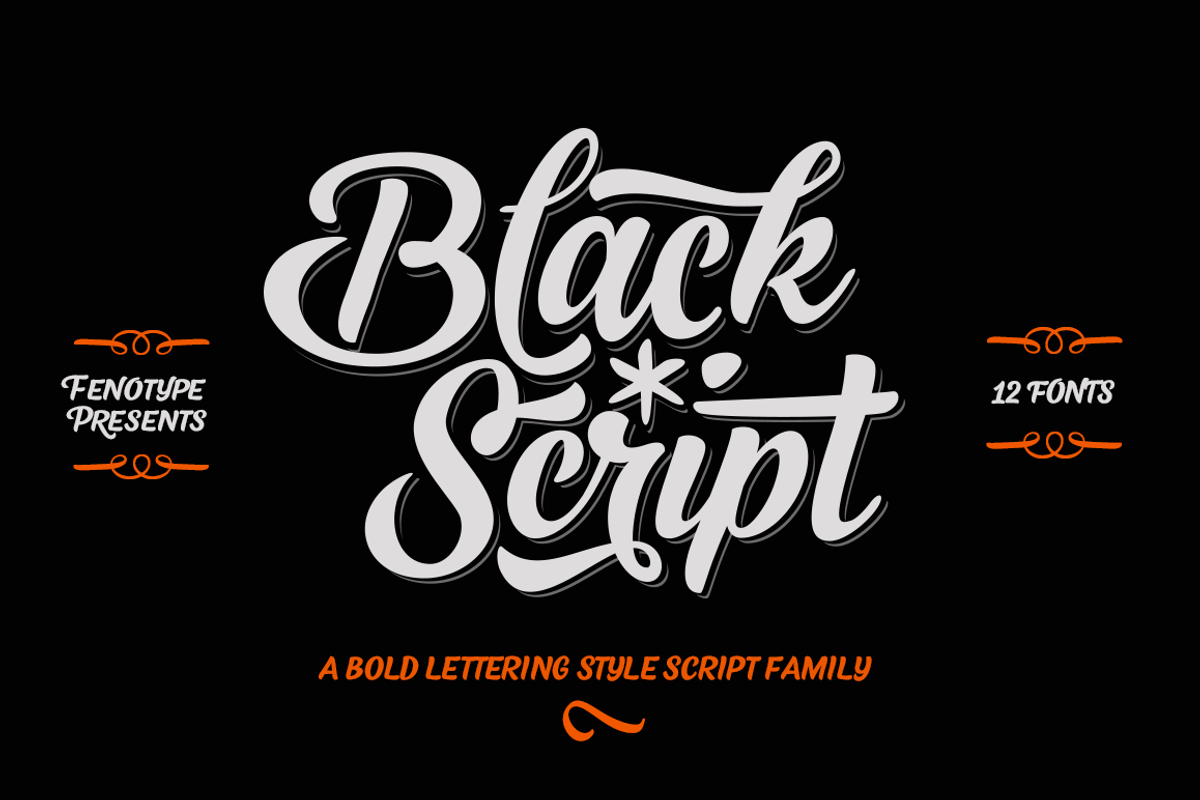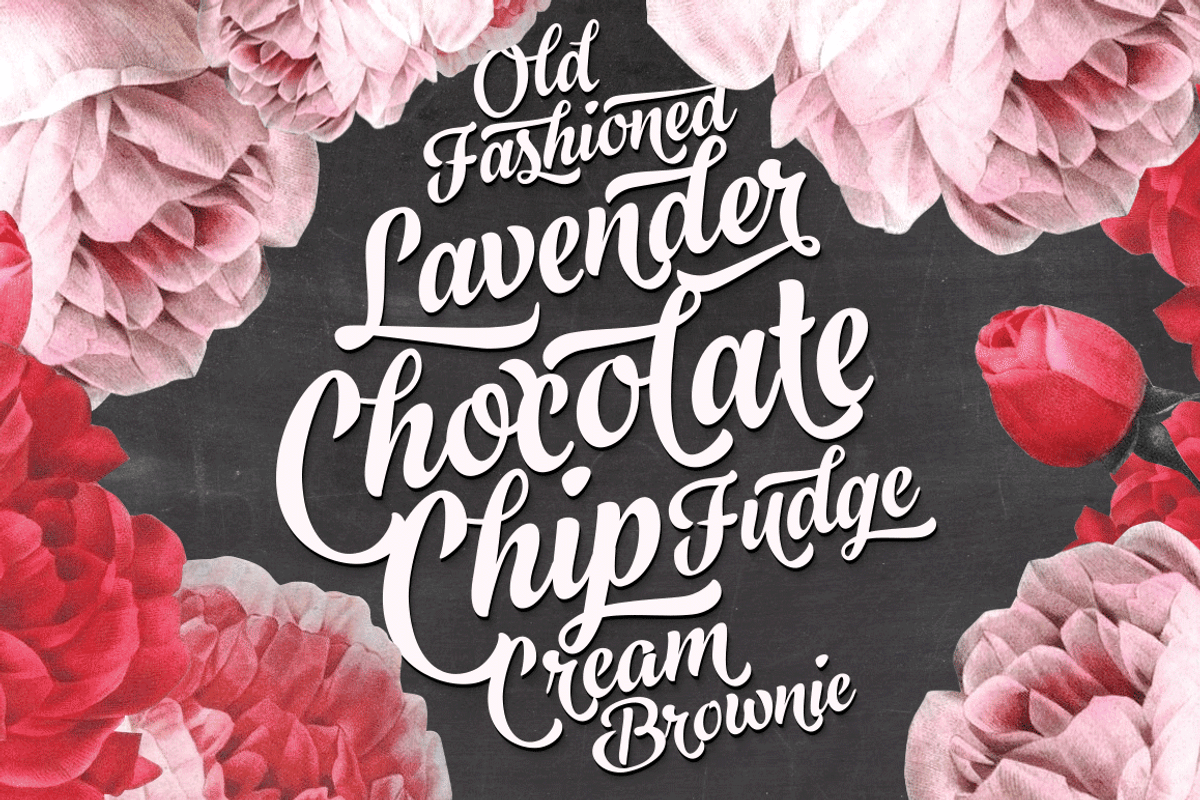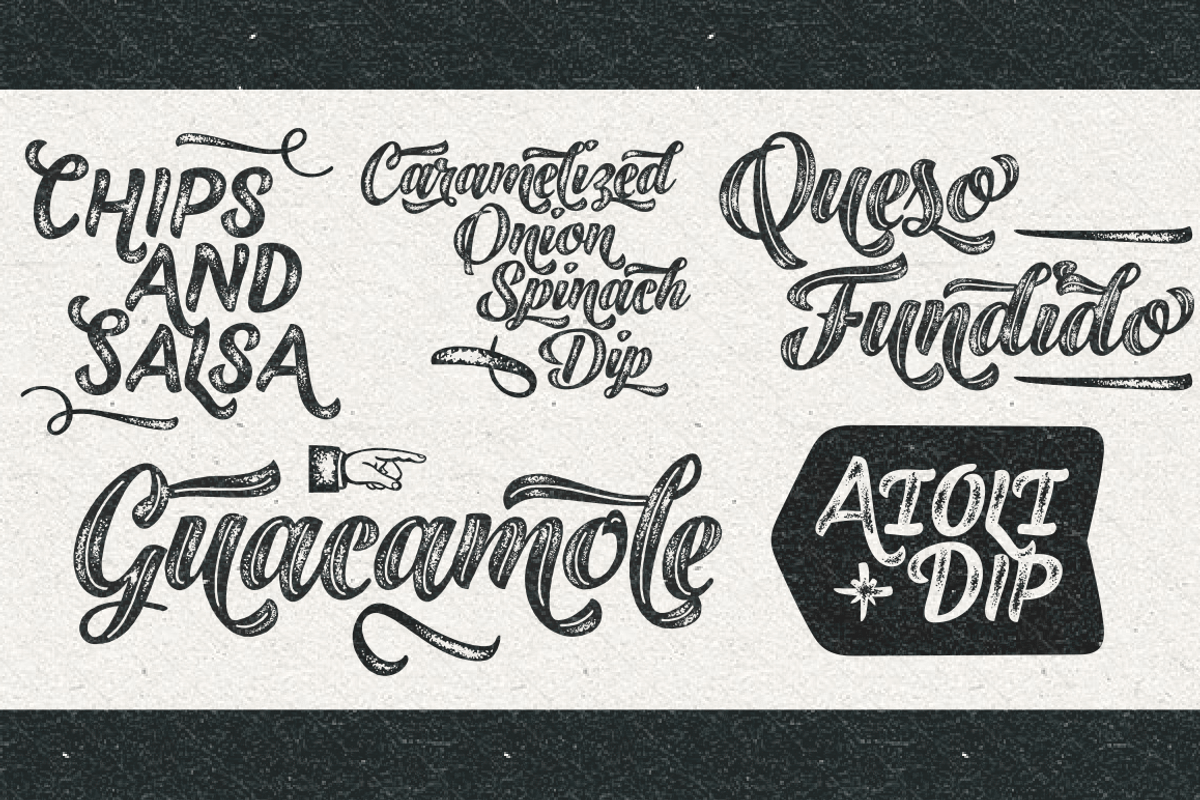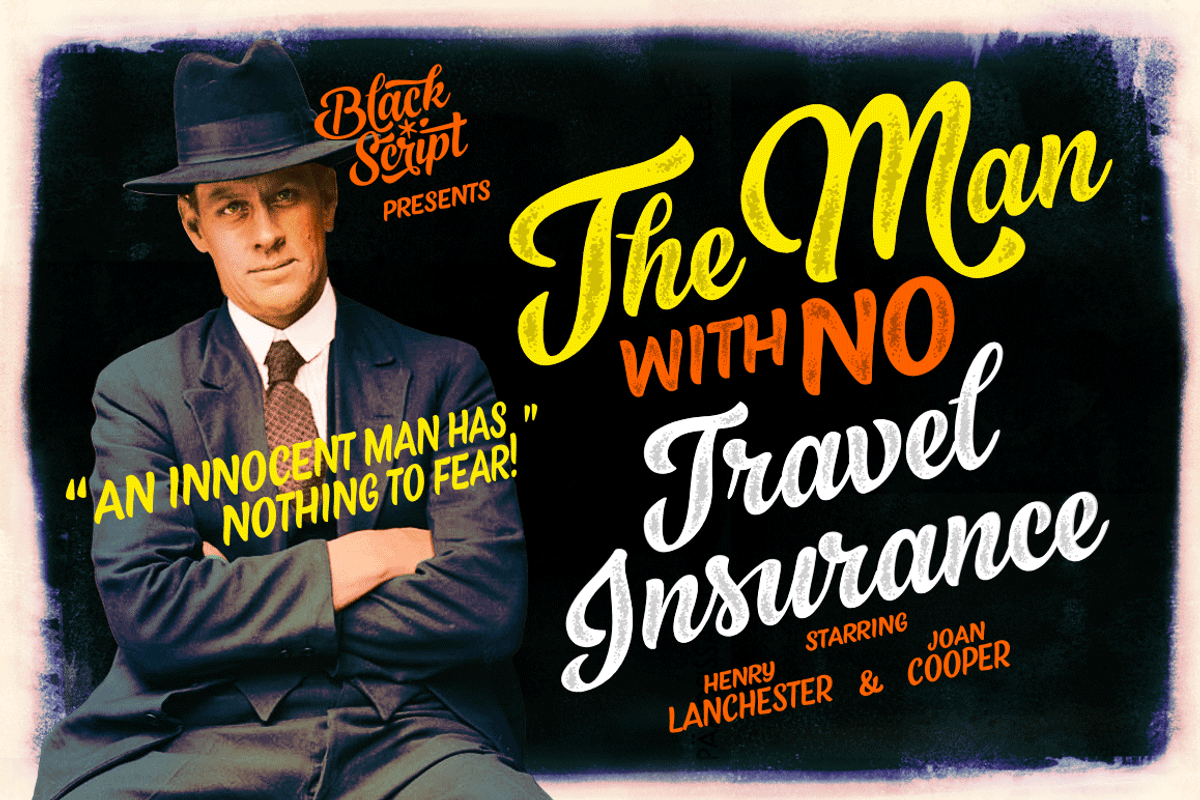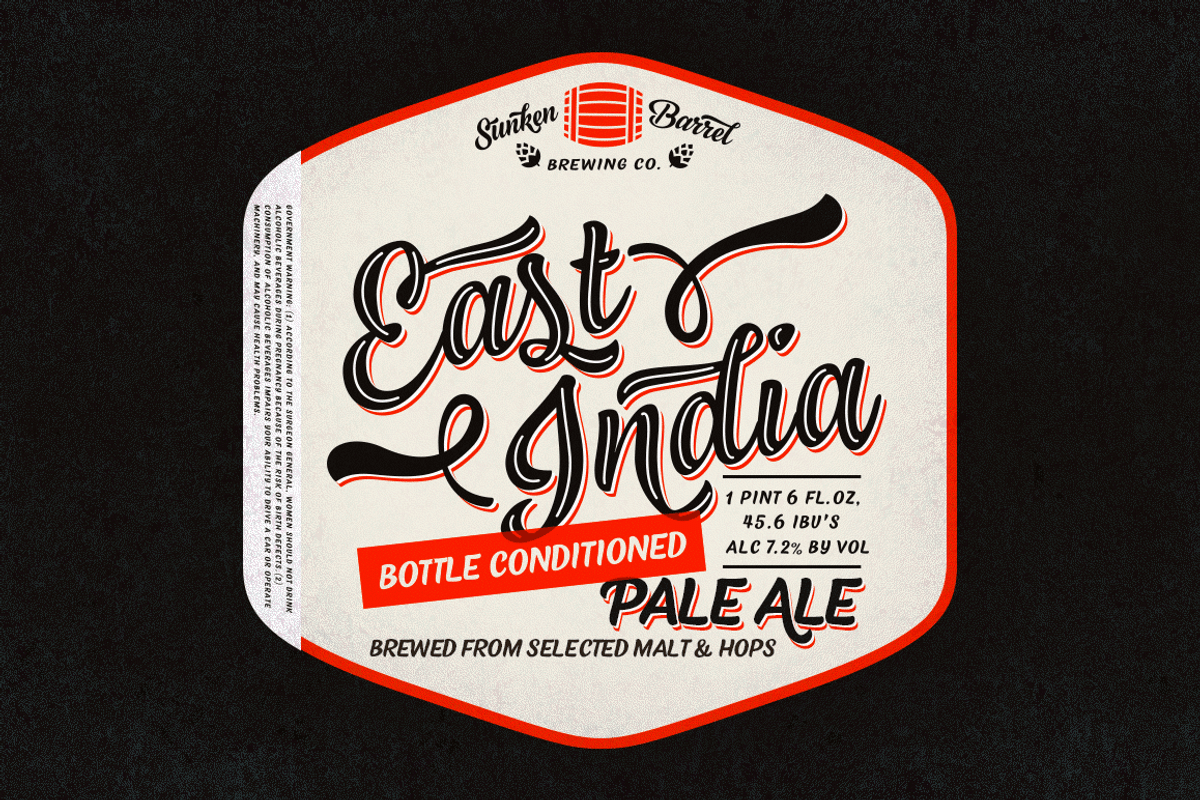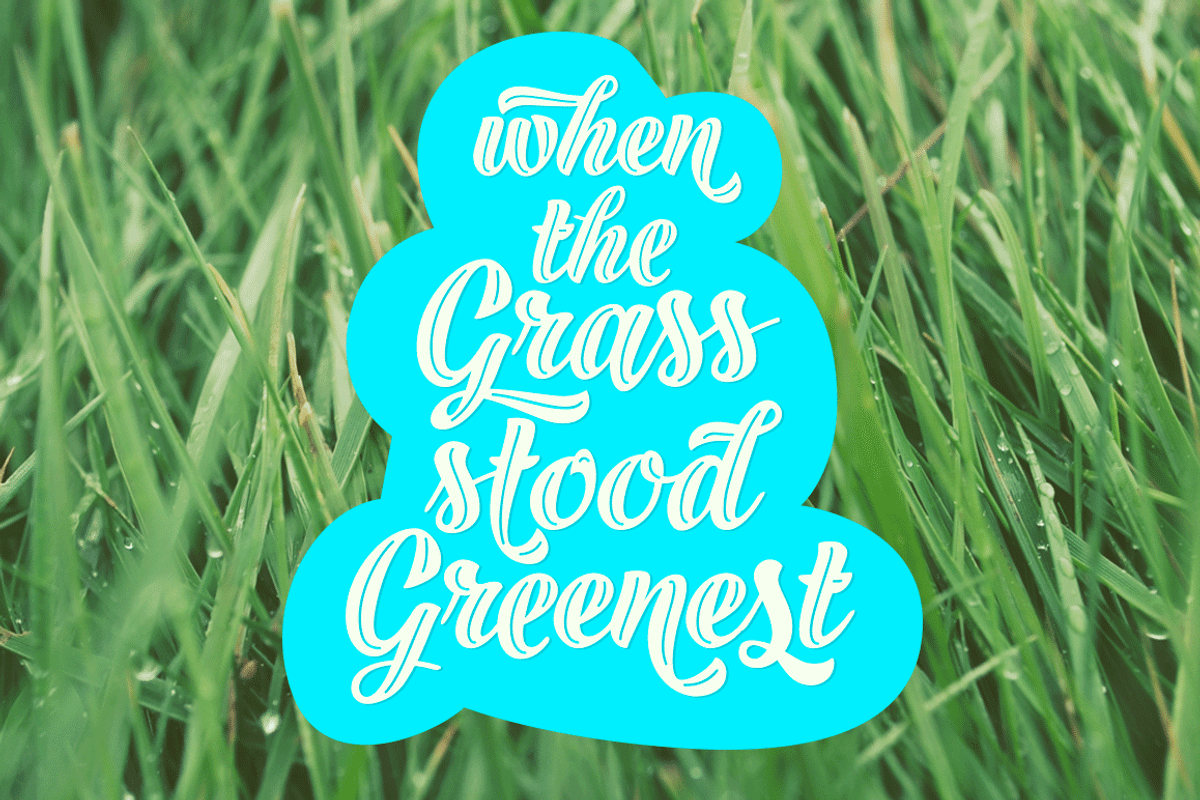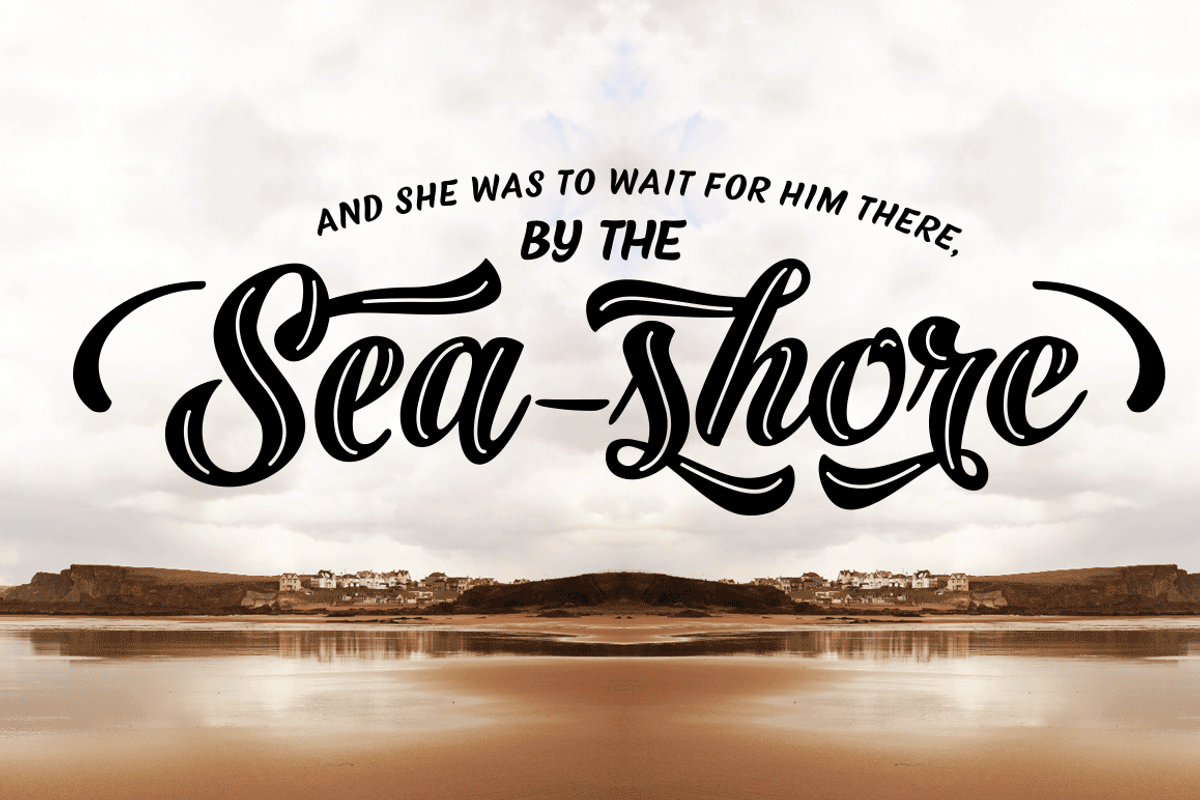
Black Script -12 fonts + extras pack
Black Script -12 fonts + extras pack by Fenotype is a font selected for branding, posters, packaging, typography.
- Black Script is equipped with automatic OpenType Ligatures, Swash and Stylistic Alternates to let you customise your designs.
- Find even more alternates from Glyph Palette.
- Caps is equipped with Swash alternates.
Why Black Script -12 fonts + extras pack is worth a look
Black Script -12 fonts + extras pack by Fenotype fits naturally into Branding, posters, packaging, typography.